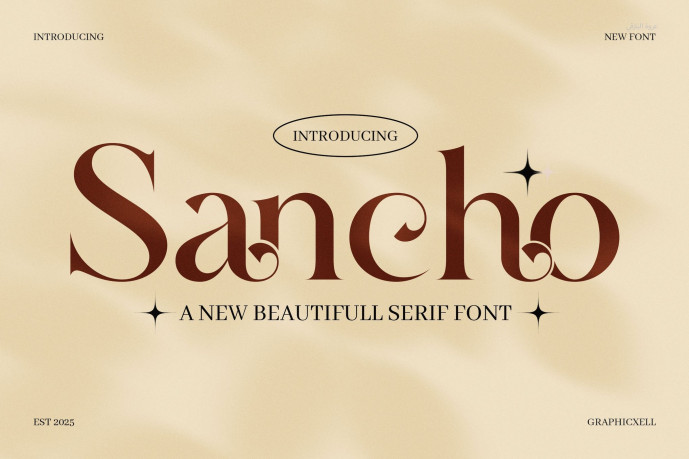
Sancho Serif Font
Sancho Serif Font is a bold, modern serif font with strong character and clean lines. Designed for impact, it blends classic serif structure with a modern twist, making it perfect for branding, headlines, logos, posters, and packaging.
While many serif fonts look traditional, Sancho stands out because of its sharp edges and balanced spacing. This gives it a bold presence while keeping text easy to read. Whether you are working on a logo or a magazine cover, this font helps your message stand out.
In addition, Sancho offers great flexibility. You can use it in both print and digital designs without losing clarity or quality. Its solid strokes and defined shapes make it a top choice for designers who want a confident, clean look.
Here’s why Sancho Serif is a strong choice for your next project:
• Great for branding, logos, and bold headlines
• Clean, modern lines with a classic serif feel
• Strong visibility in both large and small sizes
• Pairs well with script or sans-serif fonts
• Ideal for posters, packaging, and websites
• Designed for both print and digital use
• Easy to read with well-spaced letterforms
Moreover, Sancho Serif fits many styles. If your project needs a modern look with a timeless base, this font delivers exactly that. It’s bold without being too loud and stylish without being hard to read. As a result, it works well across many industries—fashion, tech, editorial, or lifestyle.
So, if you want to add strength and style to your work, Sancho Serif Font gives you a reliable and professional tool. Try it in your next project and see the difference bold serif design can make.